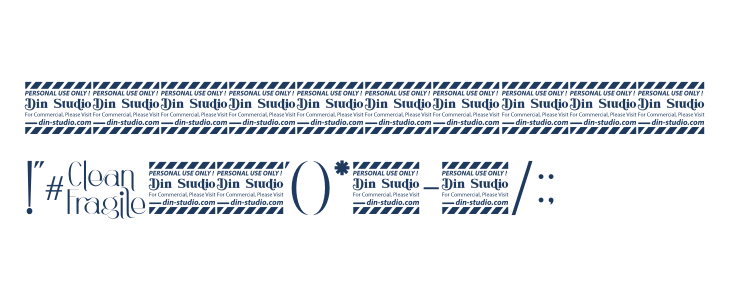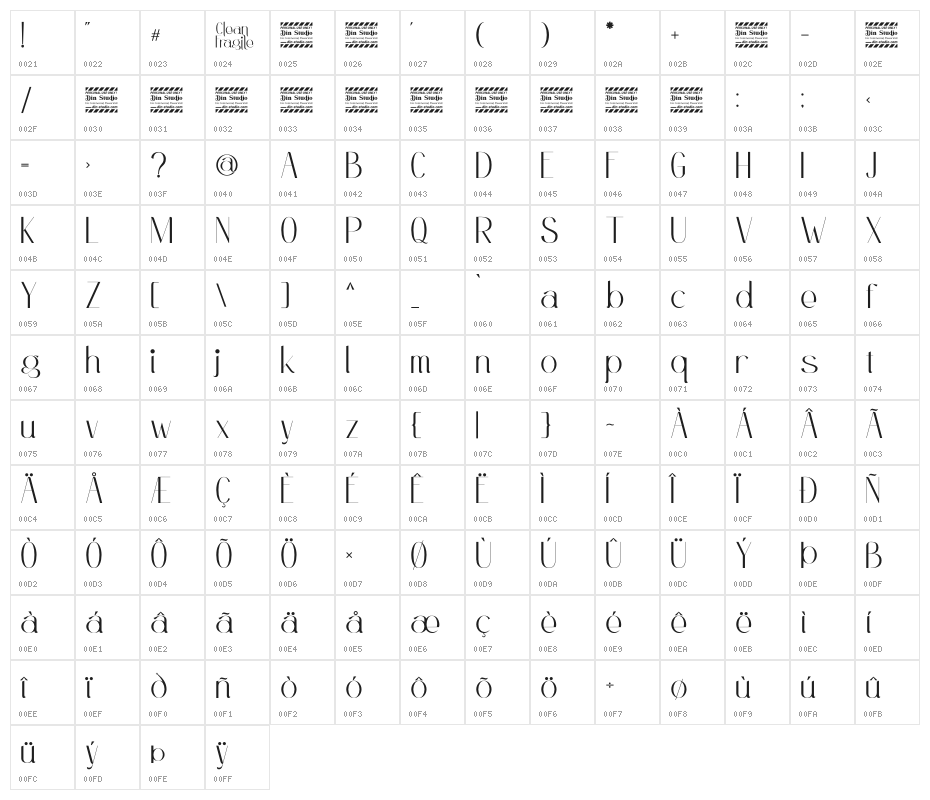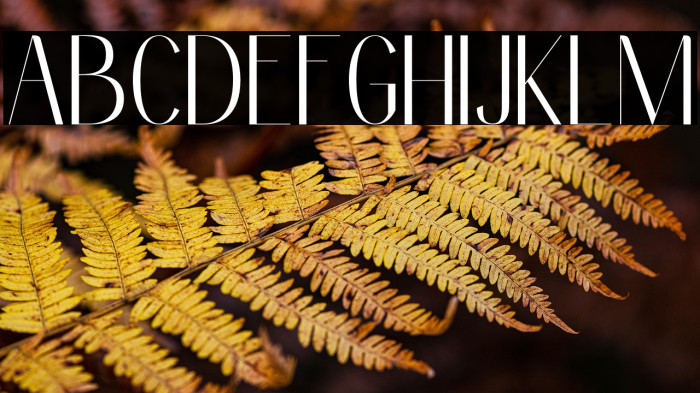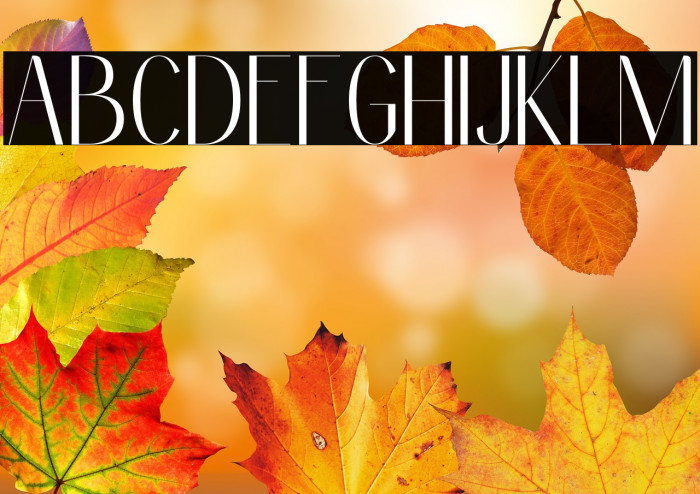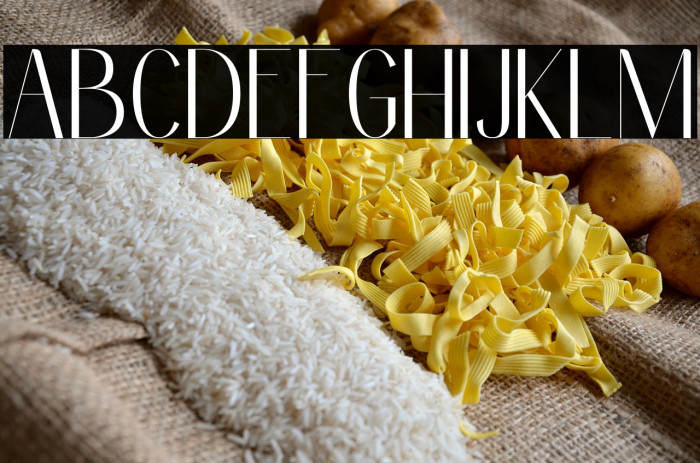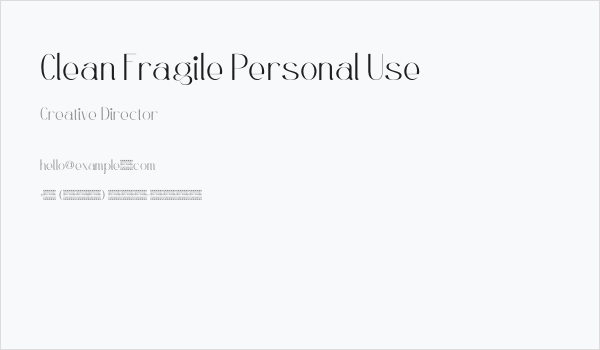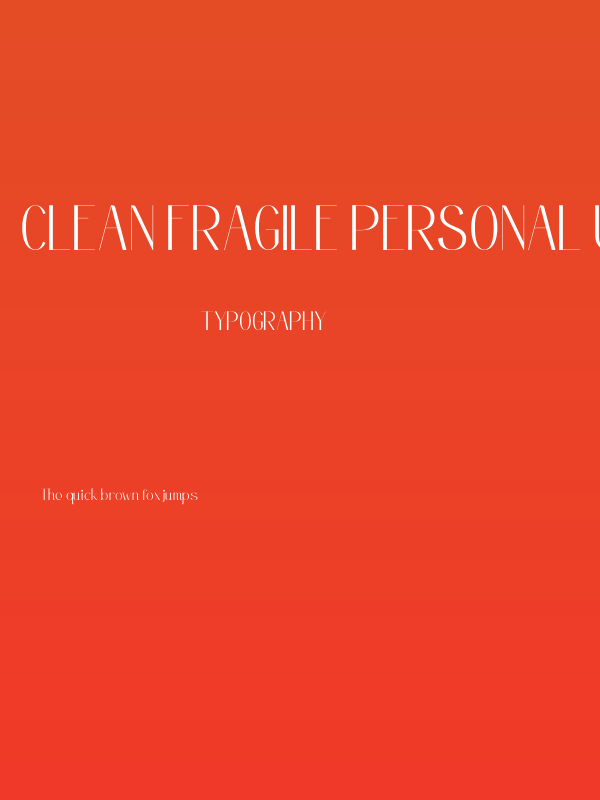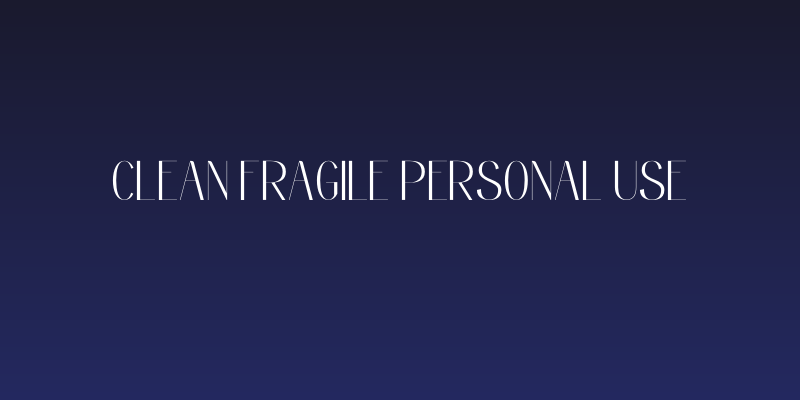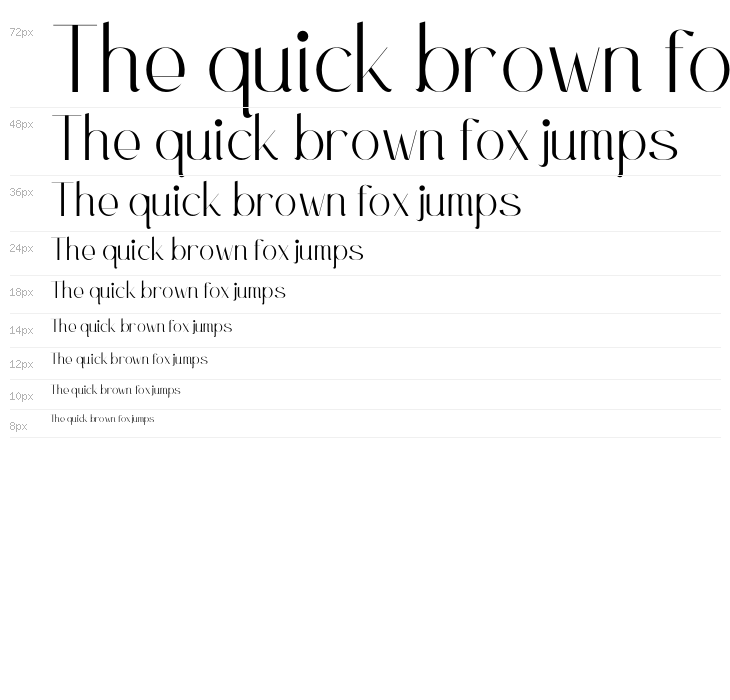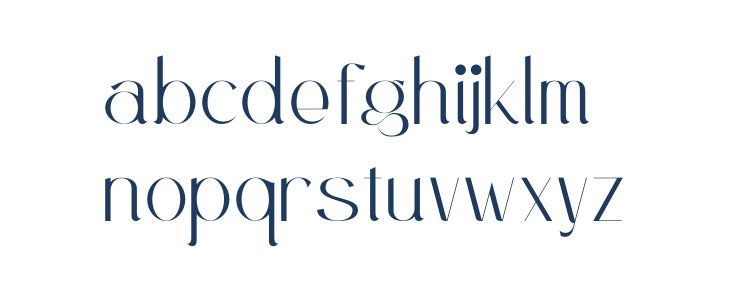
Clean Fragile Personal Use Font
Clean Fragile Personal Use Description
This font features a modern and elegant design with a high contrast between thick and thin strokes, giving it a sophisticated and stylish appearance. The uppercase letters are tall and slender, while the lowercase letters maintain a consistent style with a slightly more rounded form. The characters exhibit a clean and fragile aesthetic, making them suitable for delicate and refined design projects. The numerals and special characters are crafted with the same attention to detail, ensuring a cohesive look throughout. This font's unique style makes it ideal for projects that require a touch of elegance and modernity.
| Overall Style | Modern, Elegant |
| Proposed Projects | Ideal for fashion magazines, luxury branding, wedding invitations, and high-end product packaging. |